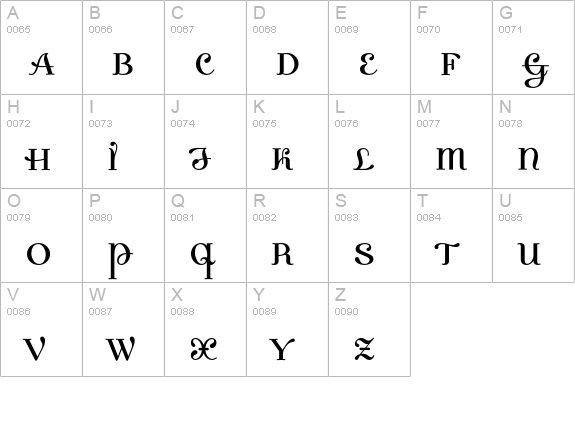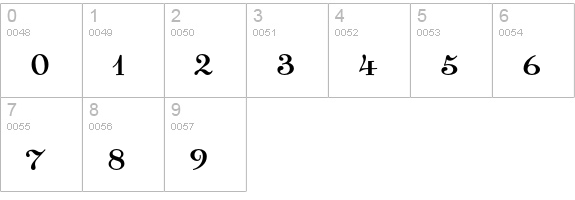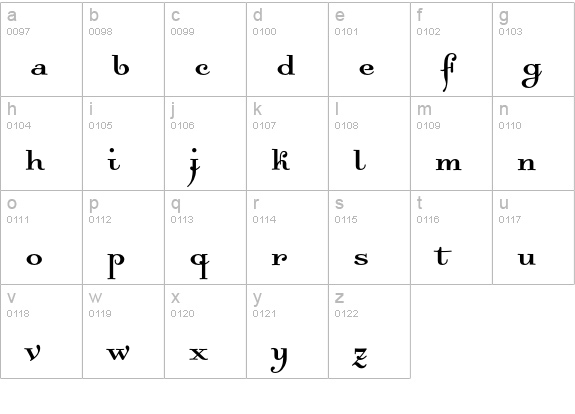
DallianceRoman Font Details
DallianceRoman is a stunning and elegant font that exudes sophistication and charm. With its timeless and graceful letterforms, this font is perfect for adding a touch of class to any design project. The sleek, slender strokes and delicate curves of DallianceRoman create a sense of refinement and elegance that is sure to captivate and impress. What sets DallianceRoman apart is not just its beauty, but also its accessibility. It is freely available to download at FontsMarket.com, making it a versatile and cost-effective choice for designers, creatives, and enthusiasts alike. Whether you're working on a personal project or a professional venture, DallianceRoman allows you to create stunning designs without breaking the bank. With its extensive character set, DallianceRoman offers a wide range of possibilities. From elegant wedding invitations and sophisticated branding materials to stylish packaging and captivating headlines, this font can elevate any design to new heights. Its versatility allows it to be used in various contexts, from print to digital, ensuring that your message is conveyed with utmost elegance and clarity. DallianceRoman's clean and legible design makes it a perfect choice for body text as well. Its readability ensures that your written content is easy to consume, while still maintaining a sense of style and sophistication. It strikes the perfect balance between form and function, making it an ideal choice for both long-form articles and shorter pieces of text. Whether you're a seasoned designer or just starting out, DallianceRoman provides a powerful tool in your creative arsenal. Its timeless beauty and accessibility make it a font that you can rely on to make a lasting impression. So why wait? Download DallianceRoman for free at FontsMarket.com and let your creativity take flight.